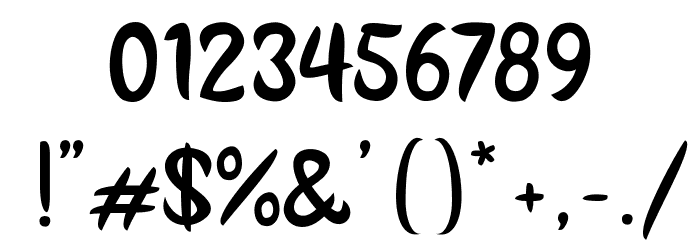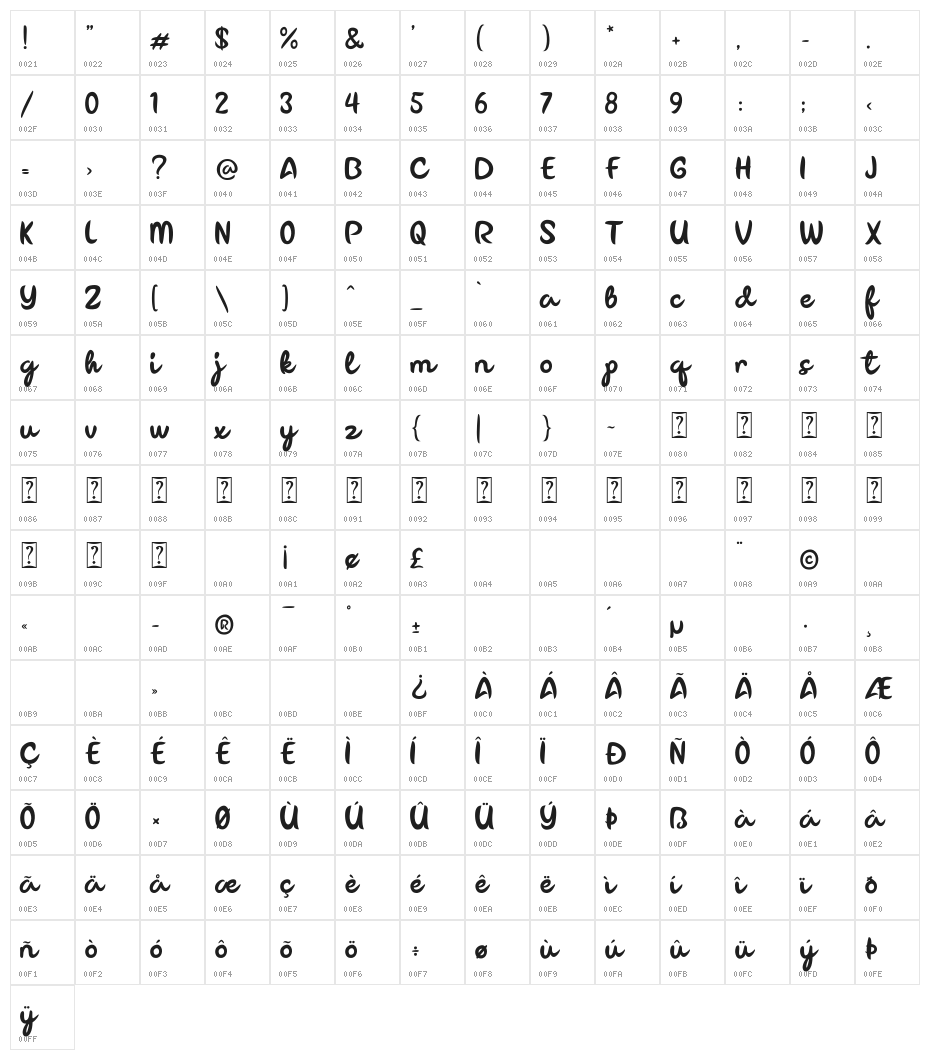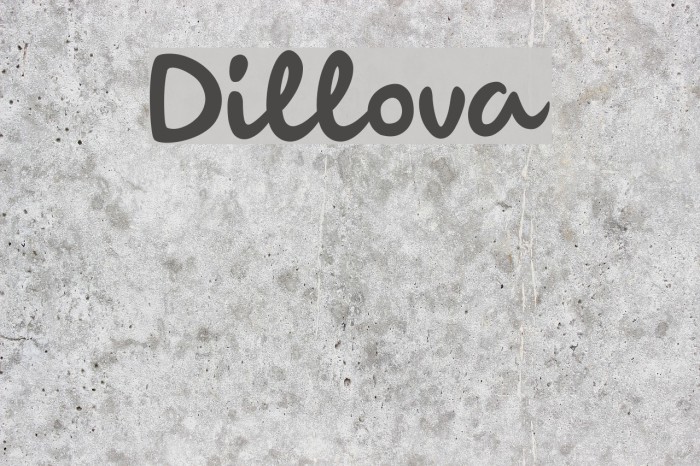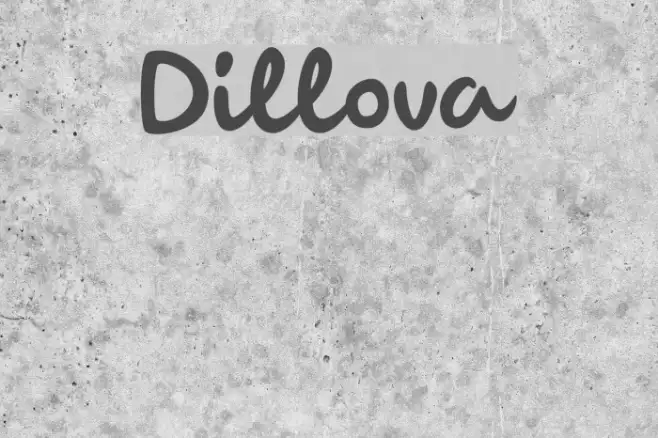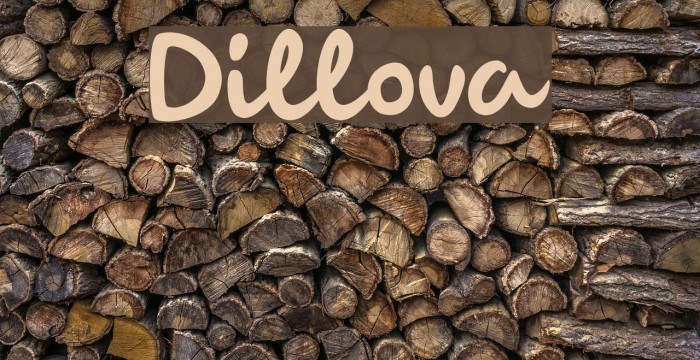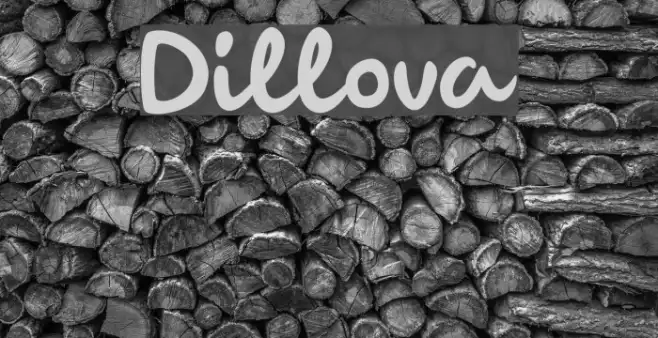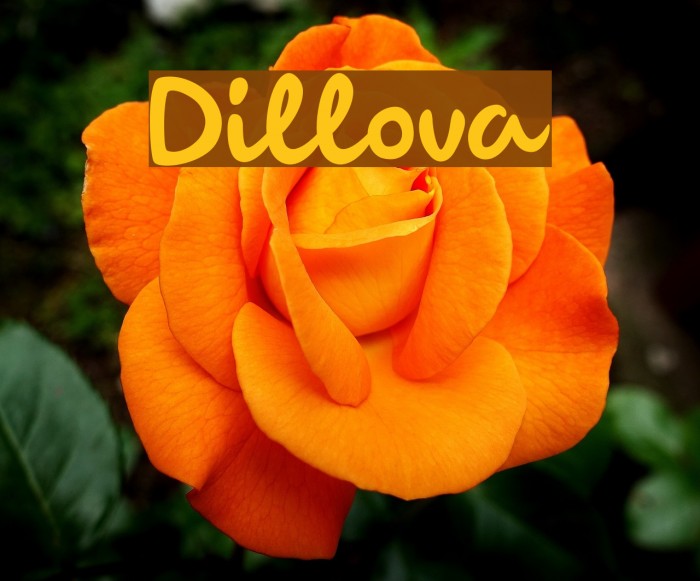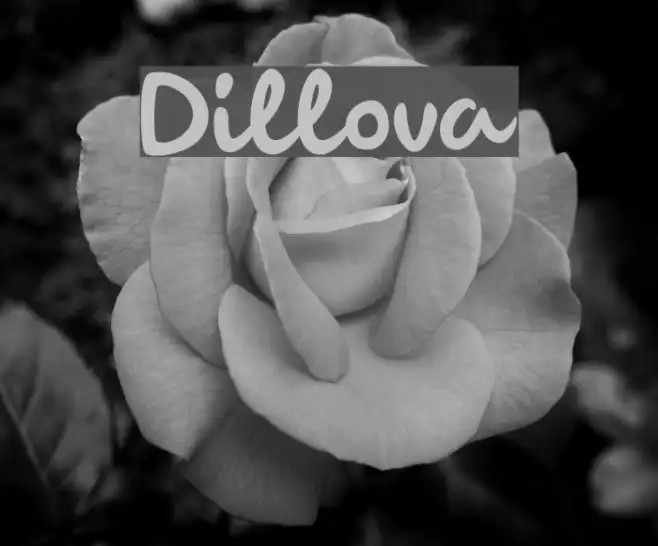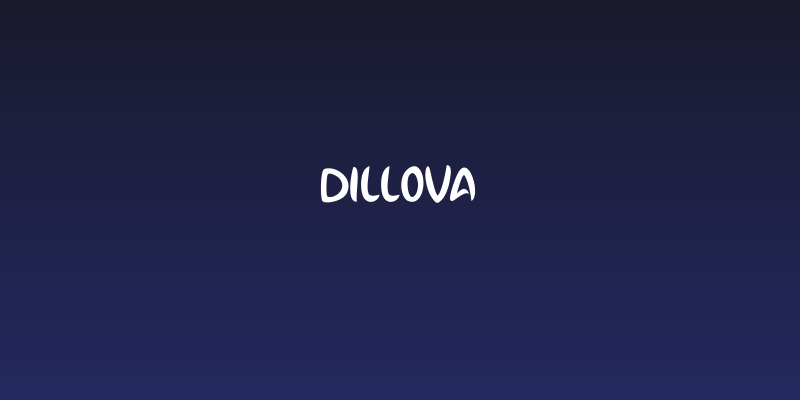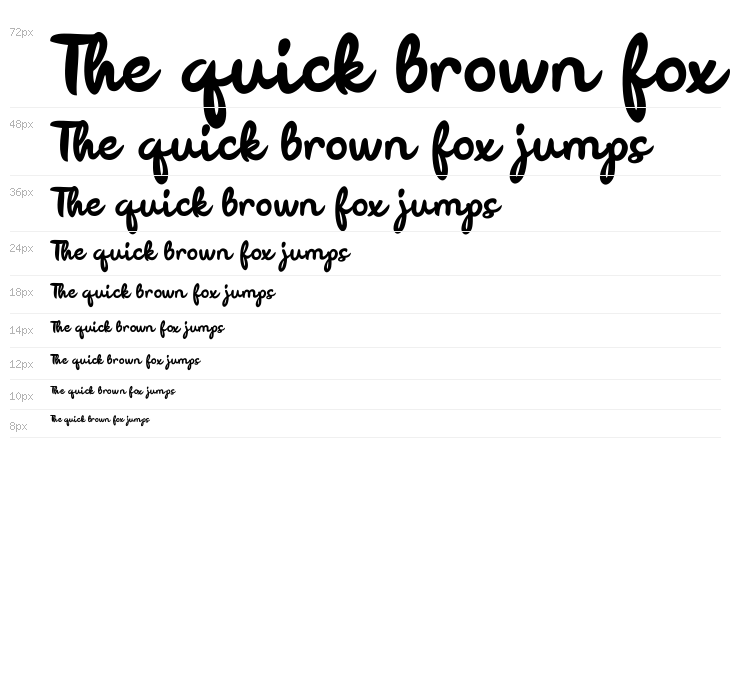
Dillova Font
Dillova Description
This font features a playful and bold script style with a handwritten feel. The characters are rounded and slightly exaggerated, giving them a whimsical and friendly appearance. The uppercase letters are distinct with a consistent stroke width, while the lowercase letters maintain a fluid and connected style, enhancing the handwritten effect. The numerals are clear and easy to read, matching the overall playful aesthetic. Special characters are well-integrated, maintaining the font's cohesive look. This font is ideal for projects that require a personal and approachable touch.